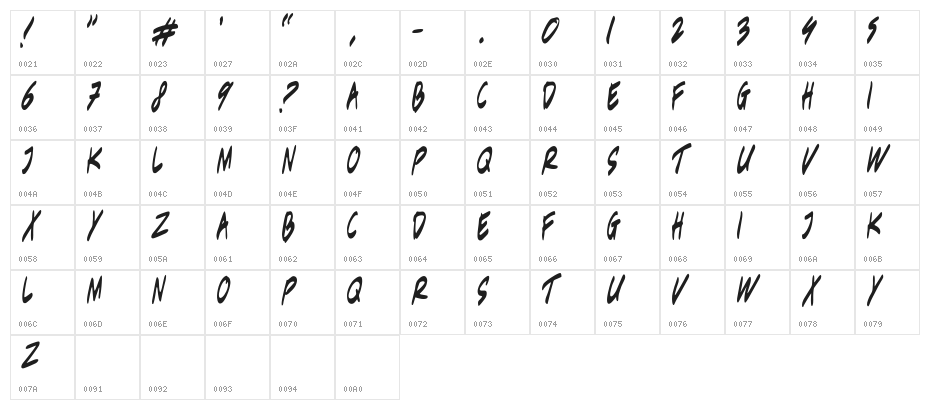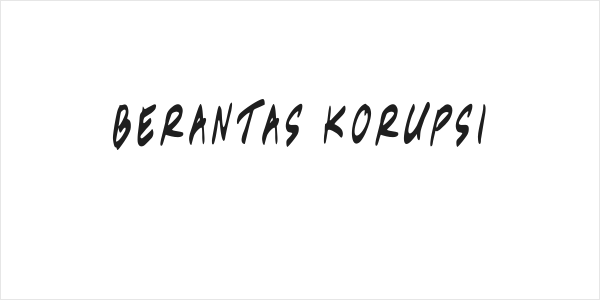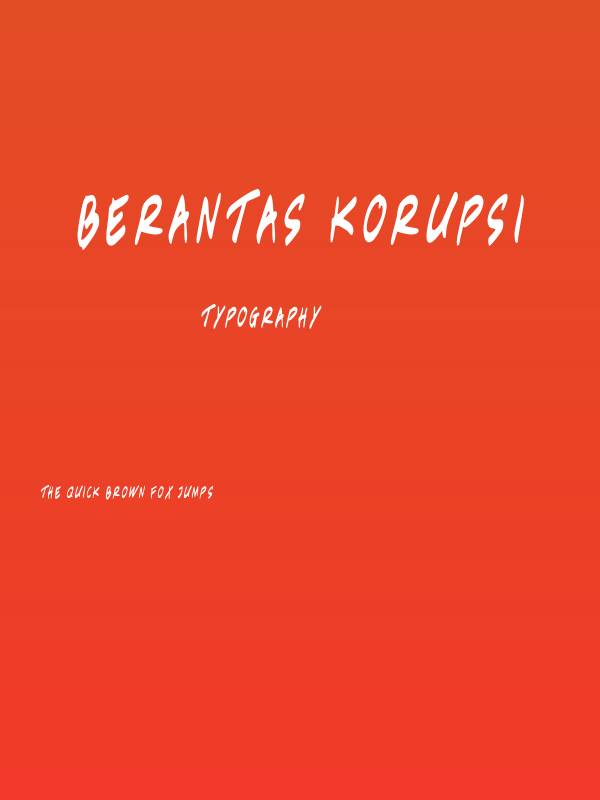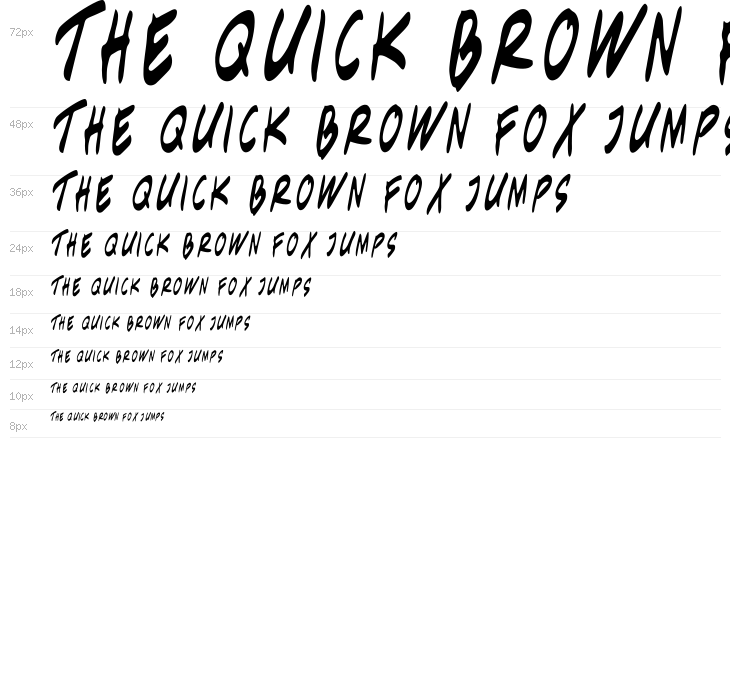
Berantas Korupsi Font
Berantas Korupsi Description
This font features a bold, energetic script style with a hand-drawn appearance. The letters are slightly slanted, giving a sense of motion and dynamism. The strokes are thick and consistent, with a casual yet assertive feel. The uppercase and lowercase letters maintain a cohesive look, while the numbers and special characters are designed to match the overall aesthetic. This font is ideal for projects that require a personal touch, such as invitations, posters, or branding materials. Its unique style makes it stand out, adding a creative flair to any design.
Proposed ProjectsIdeal for invitations, posters, branding, and creative projects.